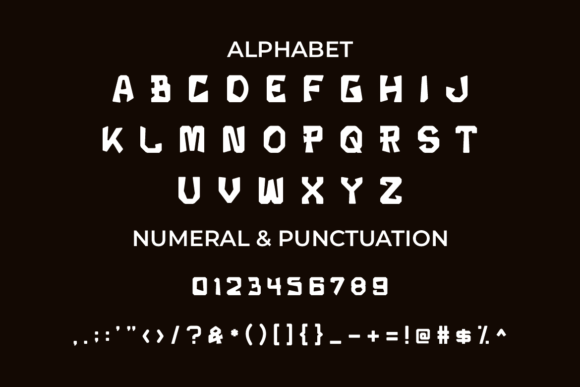
The Designer’s Dream: Unleashing the Power of Dean Horn Font
I’ll never forget the time I was working on a project for a client who wanted a bold, eye-catching font to capture the essence of their brand. I spent hours scouring the internet for the perfect font, but nothing seemed quite right. That was until I stumbled upon Dean Horn Font. It was like a breath of fresh air – cool, authentic, and versatile. In this article, I’ll share my experience with Dean Horn Font, its features, and how to make the most of it in your designs.
An Honest Review of Dean Horn Font
- ✨ Unique Character: Dean Horn Font has a distinct personality that sets it apart from other display fonts.
- ✅ Versatility: It can be used for a wide range of projects, from branding and advertising to packaging and signage.
- 💡 Inspirational: The font’s creative and artistic vibe can inspire new ideas and perspectives.
While Dean Horn Font is an excellent addition to any font library, there are a few things to keep in mind:
- ⚠️ Legibility at Small Sizes: As with many display fonts, Dean Horn may not be the best choice for body text or small font sizes.
- 🤔 Limited Glyphs: While the font has a great selection of characters, it may not have every special character or glyph you need.
The Story Behind Dean Horn Font
Dean Horn Font was designed with the creative community in mind. Its unique character and versatility make it perfect for designers, crafters, and creative hobbyists looking to add a touch of personality to their projects.
Q: What type of projects is Dean Horn Font best suited for?
A: Dean Horn Font is perfect for branding, advertising, packaging, signage, and any project that requires a bold, eye-catching font.
Q: Is Dean Horn Font suitable for body text?
A: While Dean Horn Font is a beautiful display font, it may not be the best choice for body text due to legibility concerns at small sizes.